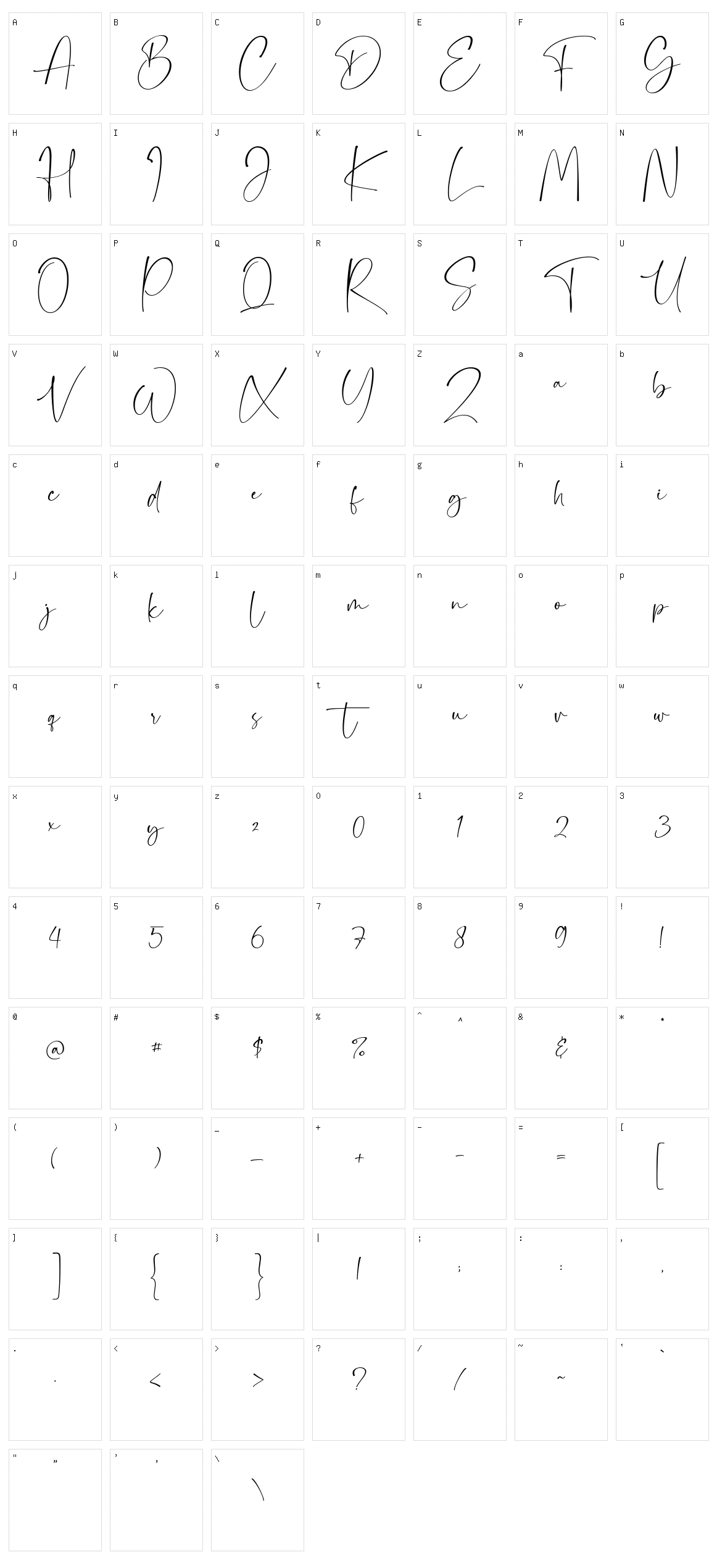
The free font Dollamin is carefully designed by Dav studio, showcasing a thoughtful balance of creativity and usability and falls under the Script font style. When you download the ZIP file, it contains only 87.51 KB of font files, making it lightweight and quick to download. Please review the license details below to understand permitted usage and distribution rights. If license information is not available, we recommend using this font for personal projects only or contacting the author directly for commercial usage permissions.